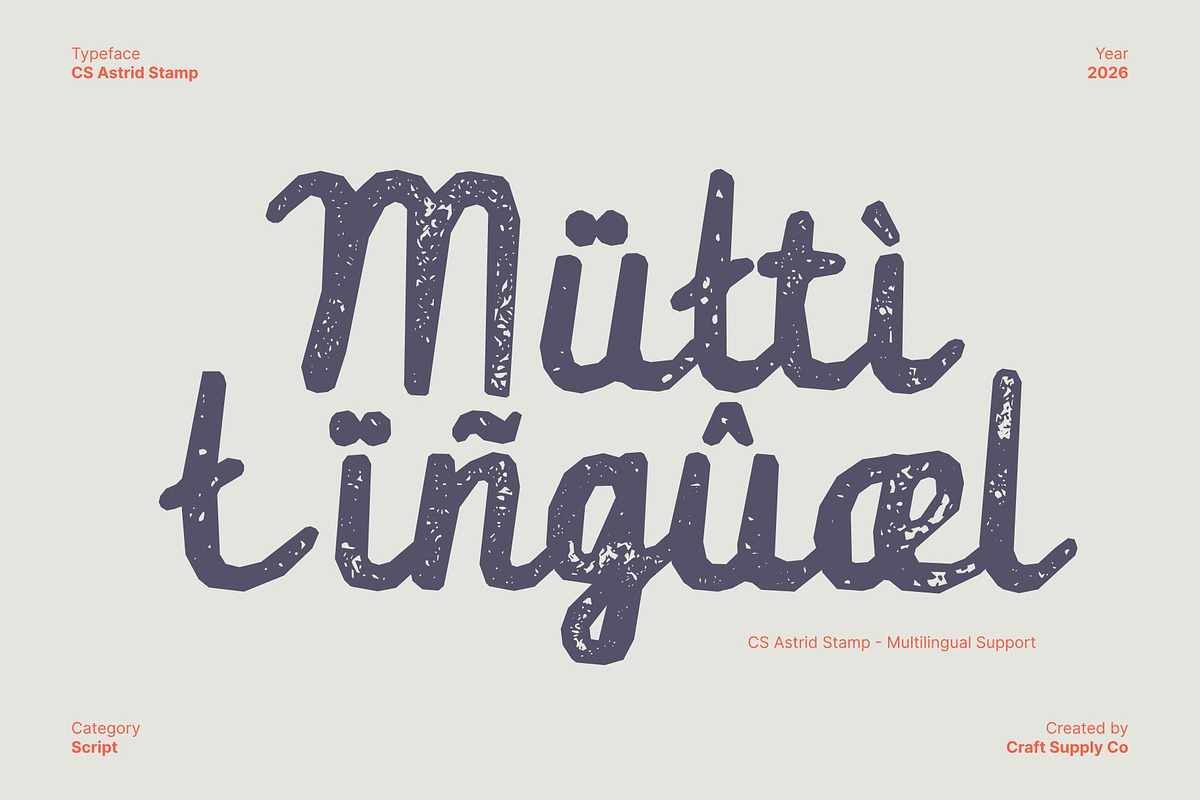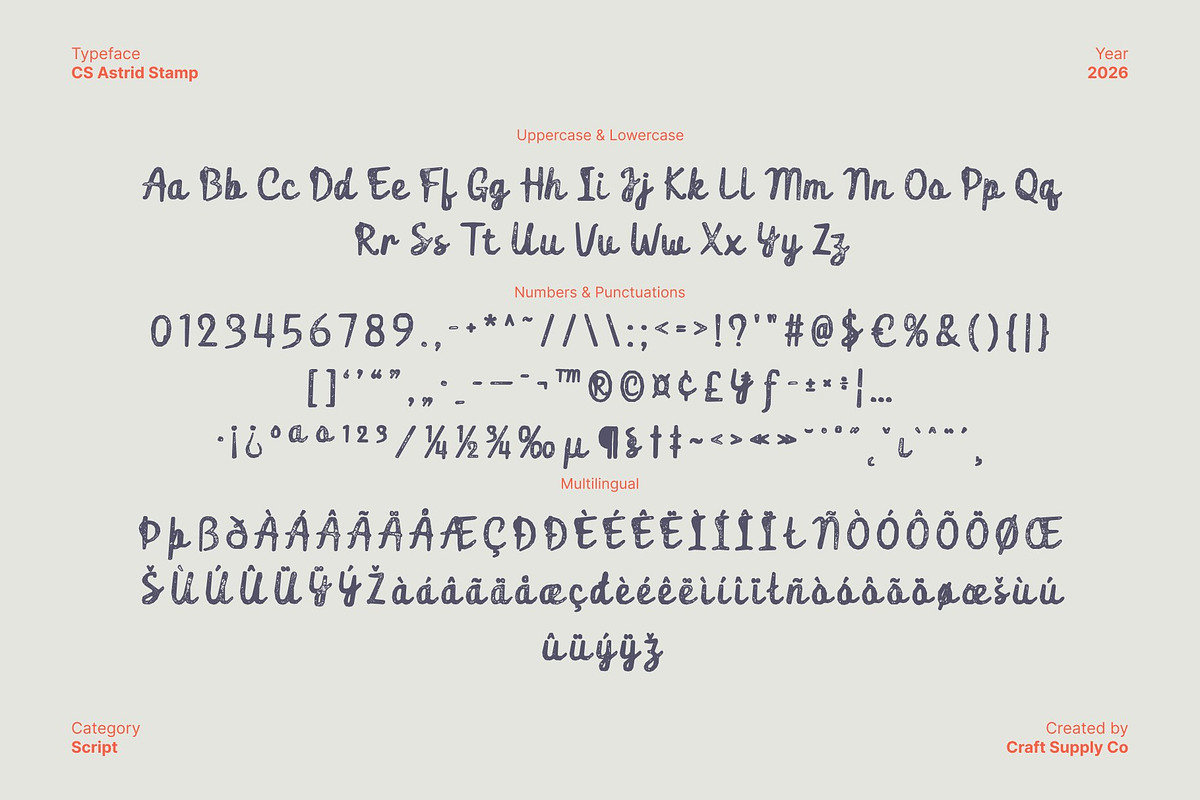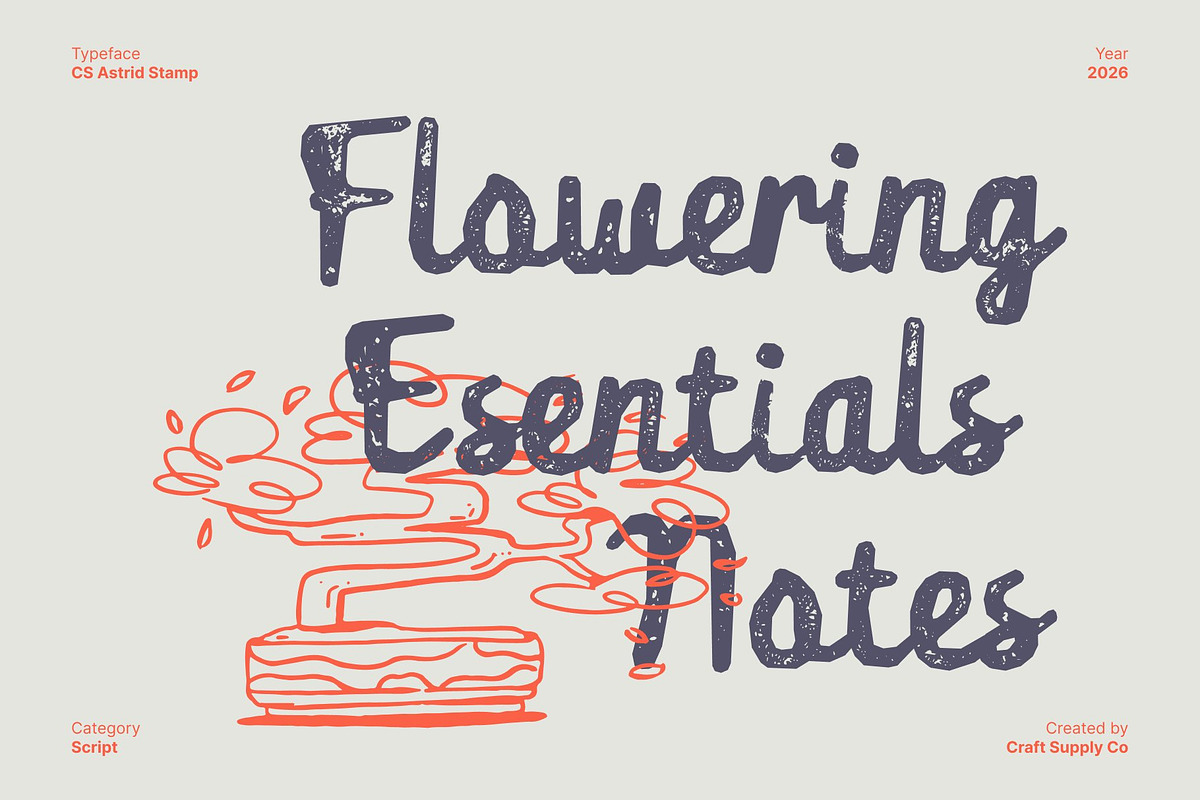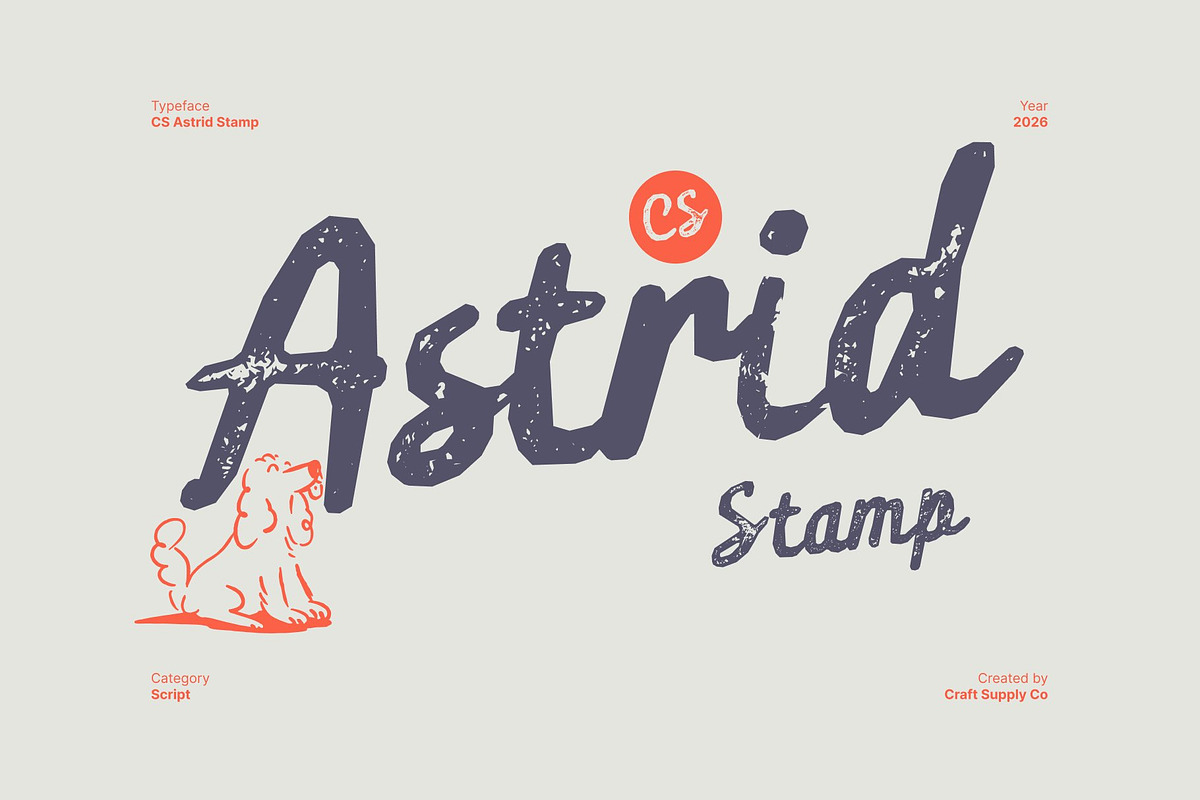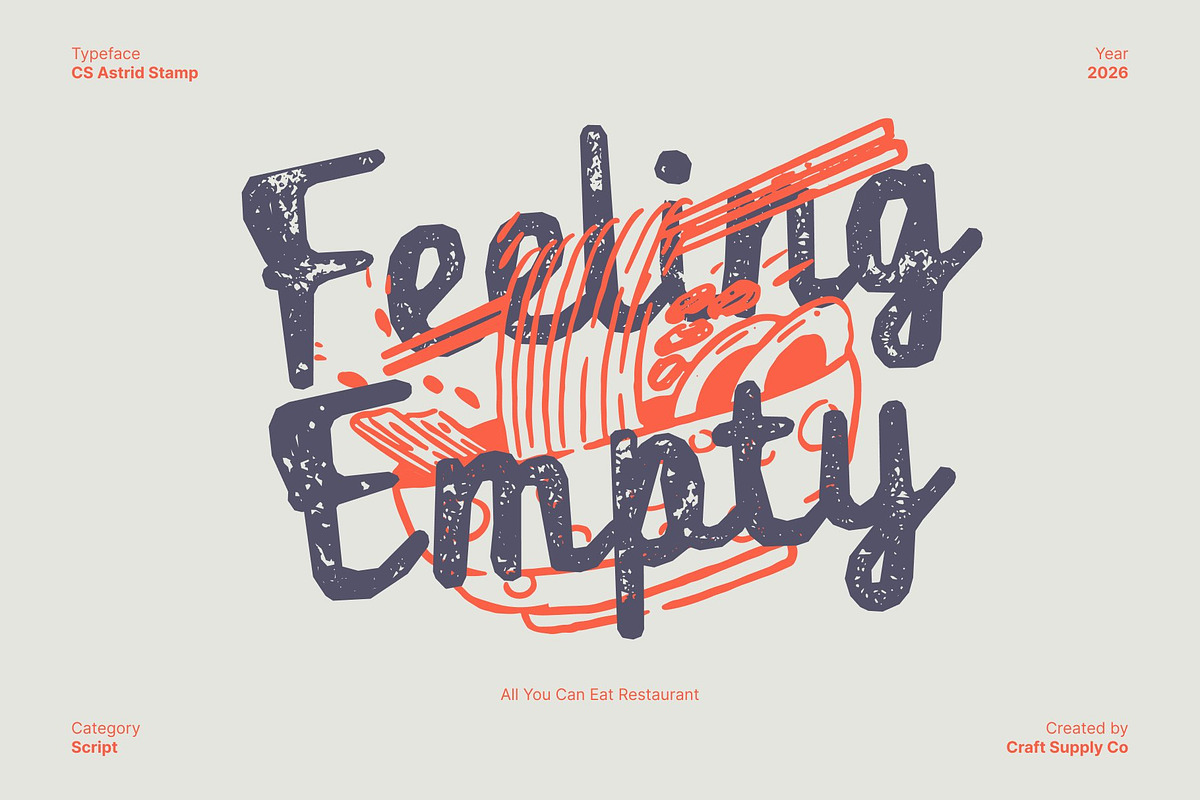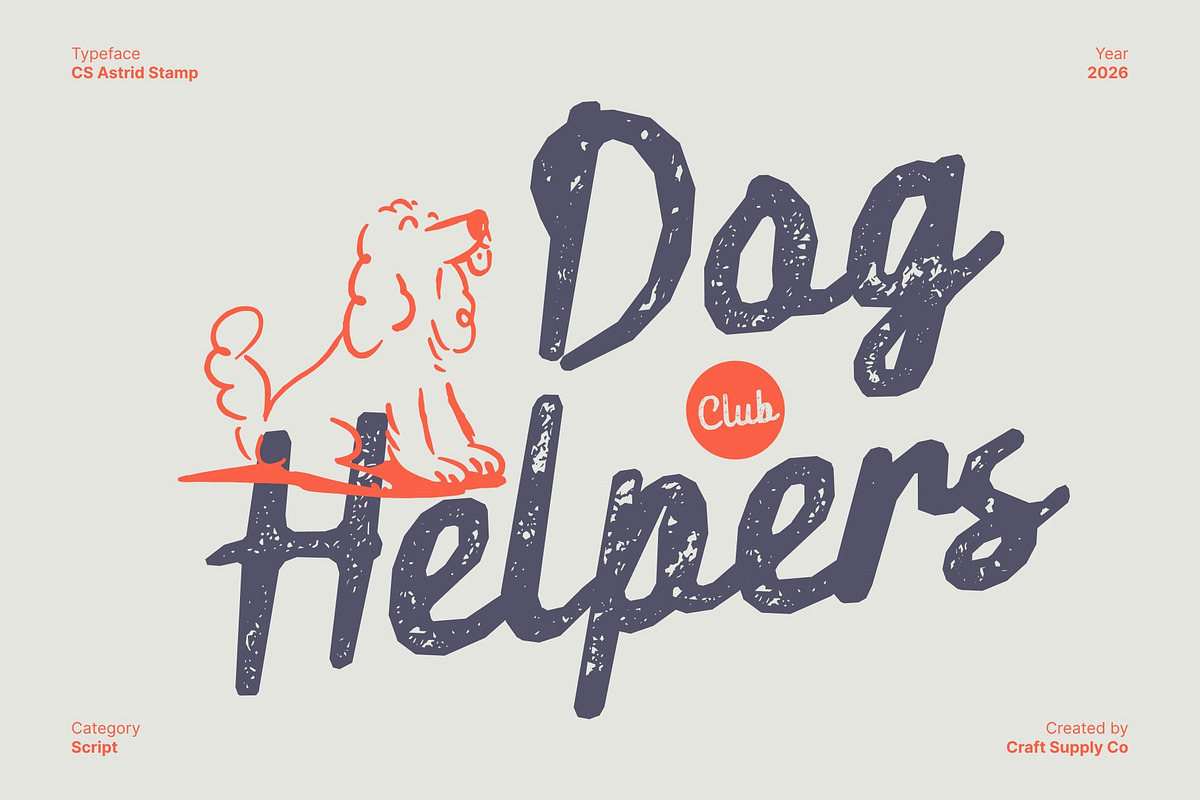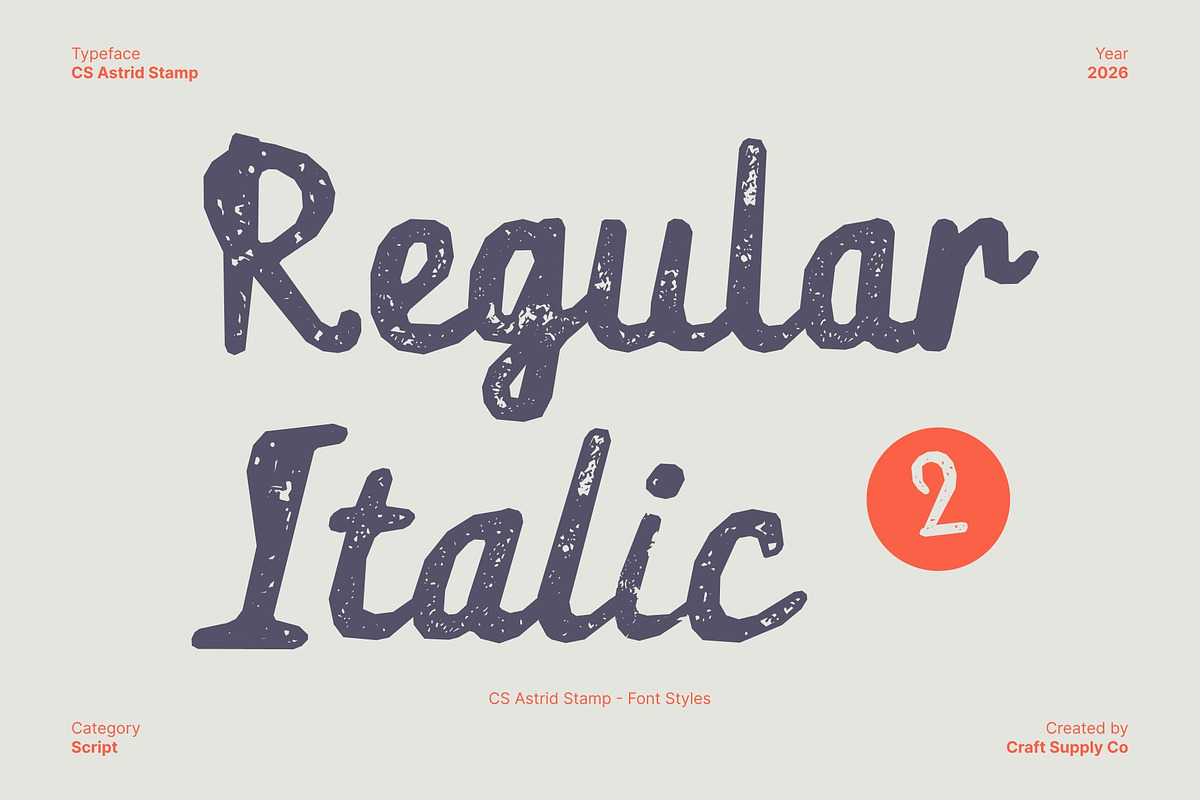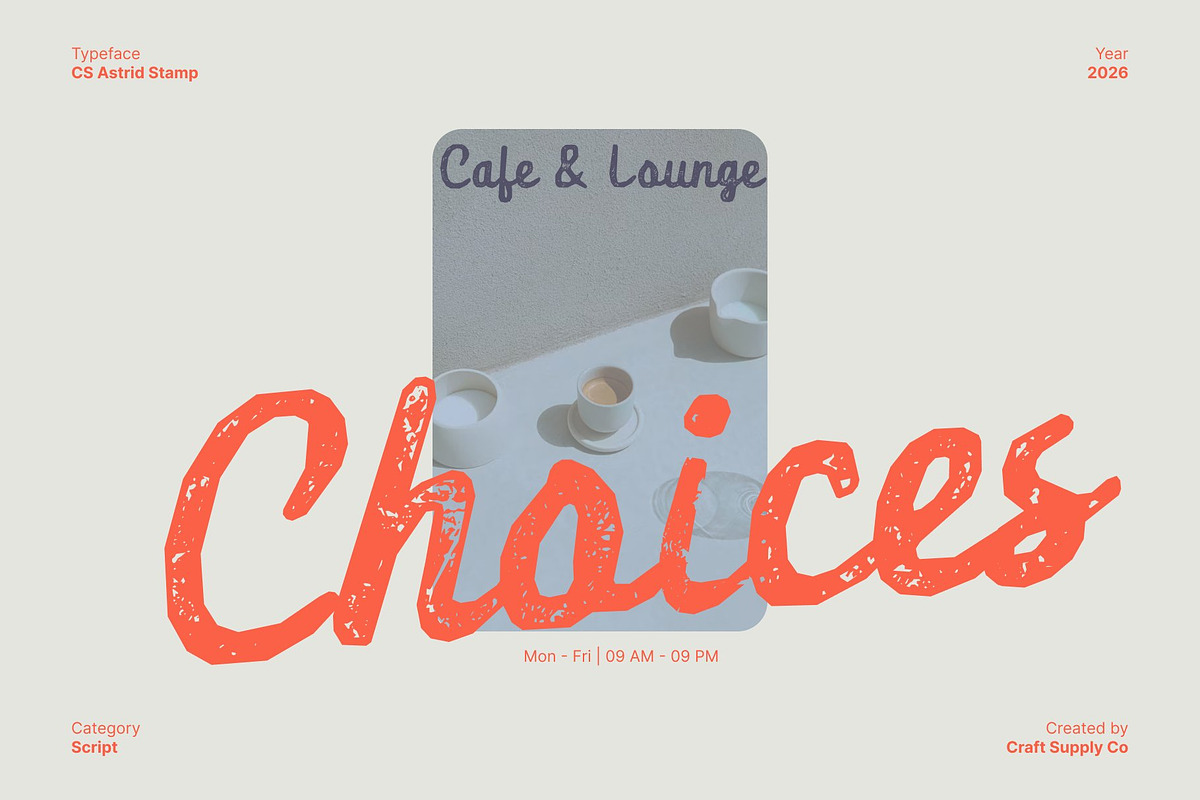
CS Astrid Stamp
CS Astrid Stamp – Script Font: Graceful Curves with a Cheerful Soul
Clean, Cursive, and Contemporary Script This is a modern script font built on smooth, connected cursive letterforms. Its flowing handwriting style creates a natural rhythm that feels elegant yet relaxed. The contemporary structure keeps the script clean and balanced, making it suitable for modern visual communication with a soft, human touch.
Smooth Curves with Feminine Elegance Each character is shaped with gentle curves and fluid transitions, expressing warmth, grace, and subtle femininity. The rounded strokes give the font a charming softness that feels refined without being overly formal perfect for beauty, fashion, lifestyle, and creative branding.
Stamped Texture for Authentic Character The stamped effect introduces a slightly rough, uneven texture that adds depth and personality to the smooth script forms. This textured finish brings a vintage and handcrafted feel, making the font feel more organic, expressive, and authentic. The contrast between elegant curves and imperfect texture creates a unique balance of refinement and character.
Perfect for Designs with Heart and Personality This font is ideal for projects that need elegance with a human touch. Its graceful script foundation, cheerful tone, and authentic stamped texture make it a versatile choice for designs that feel personal, stylish, and full of character.
CS Astrid Stamp Regular
CS Astrid Stamp Italic